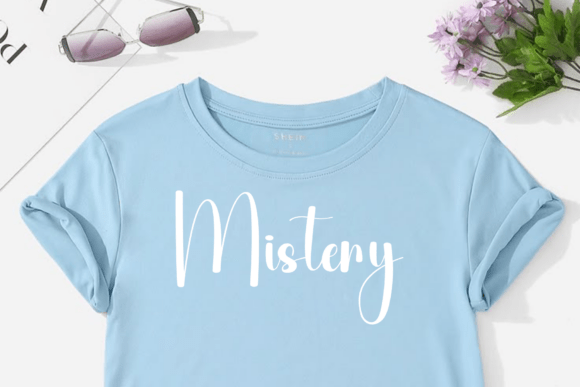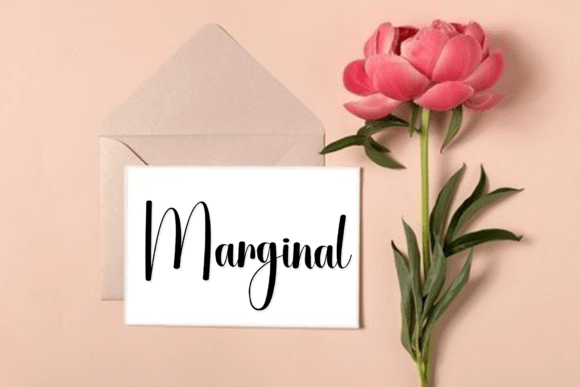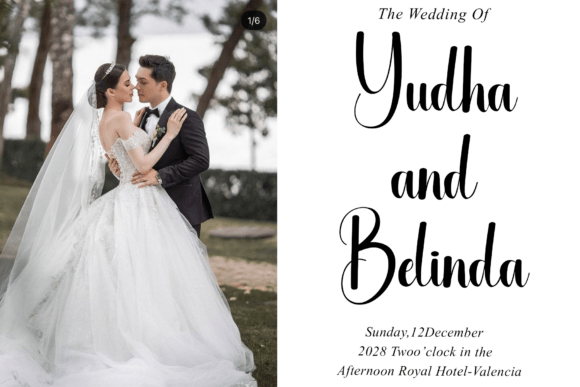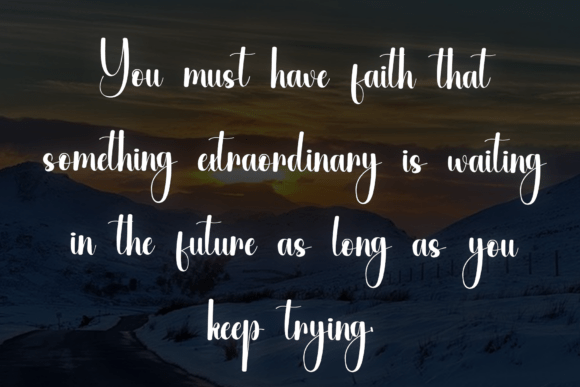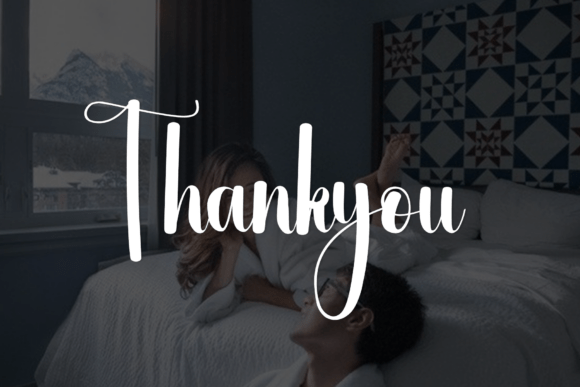
Introduction to Simple Enchanted Font
Simple Enchanted is a “unique and professional” entry into the modern handwritten collection, designed to evoke a sense of clarity and crisp elegance.
Featuring tall, thin strokes with a subtle, airy slant, it offers a refined aesthetic that feels as fresh as a mountain breeze Its clean and approachable style makes it ideal for travel photography, branding for outdoor gear, and sophisticated web design.